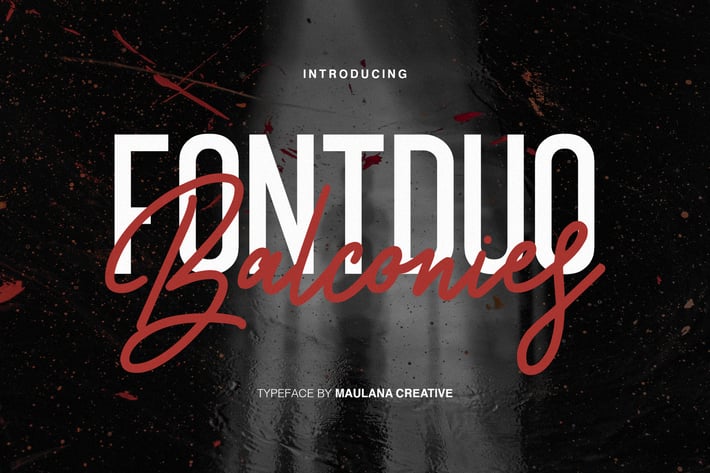
Balconies - Font Duo
Give your designs an authentic handcrafted feel. "Balconies" is perfectly suited to signature, stationery, logo, typography quotes, magazine or book cover, website header, clothing, branding, packaging design and more. Included Ligatures.